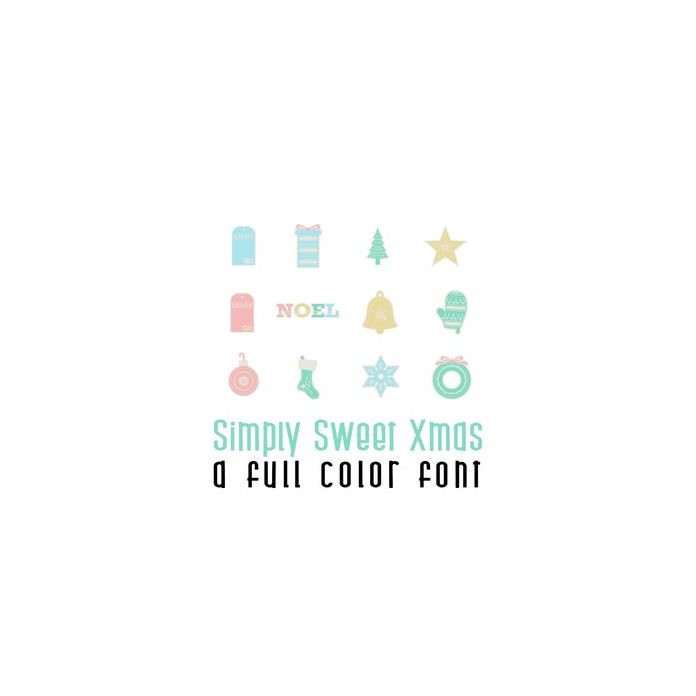
This adorable full-color doodlebat font features 26 sweet Christmas tags and images. Perfect for cards, crafts, gifts, decor, scrapbook pages, planner stickers, and more!